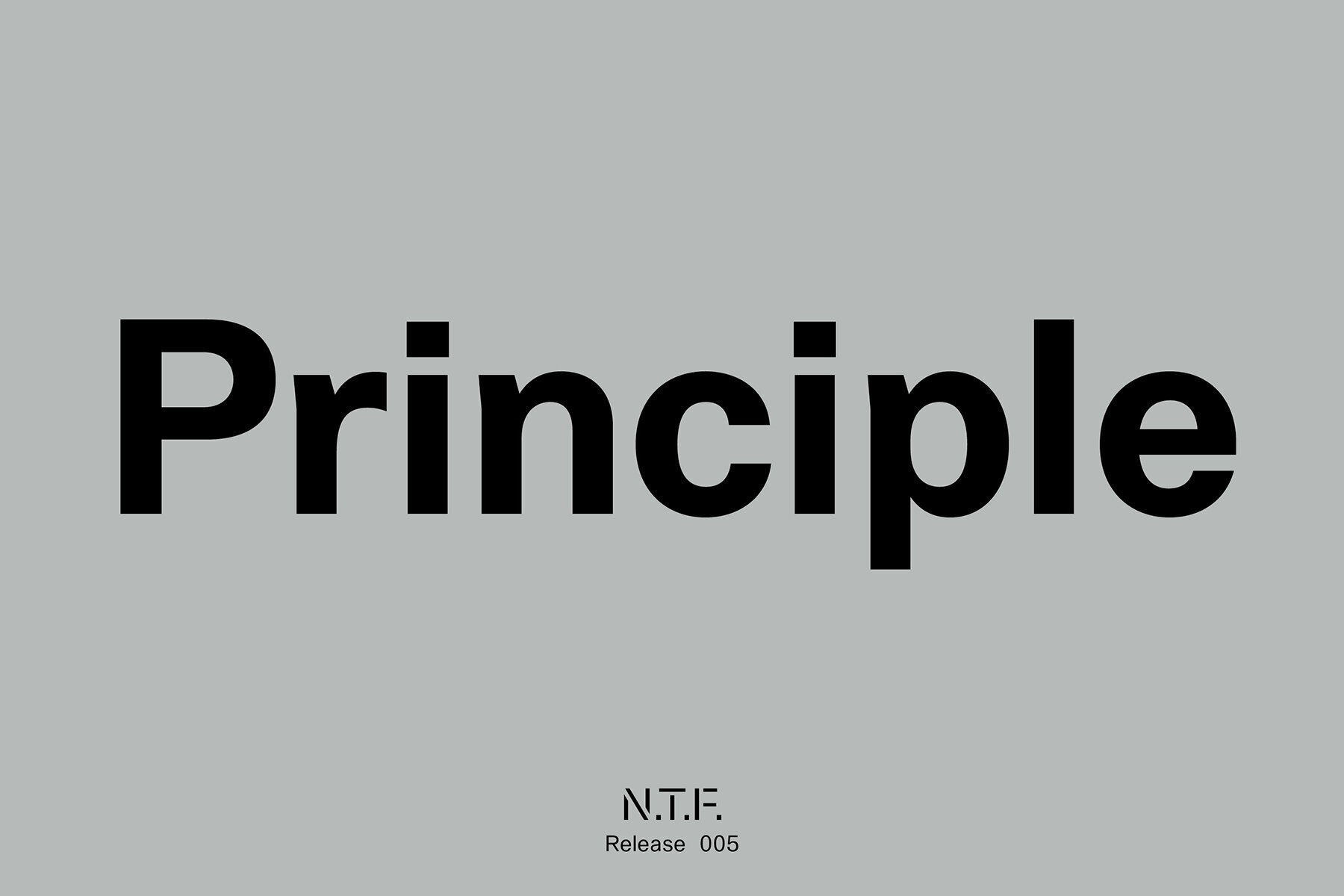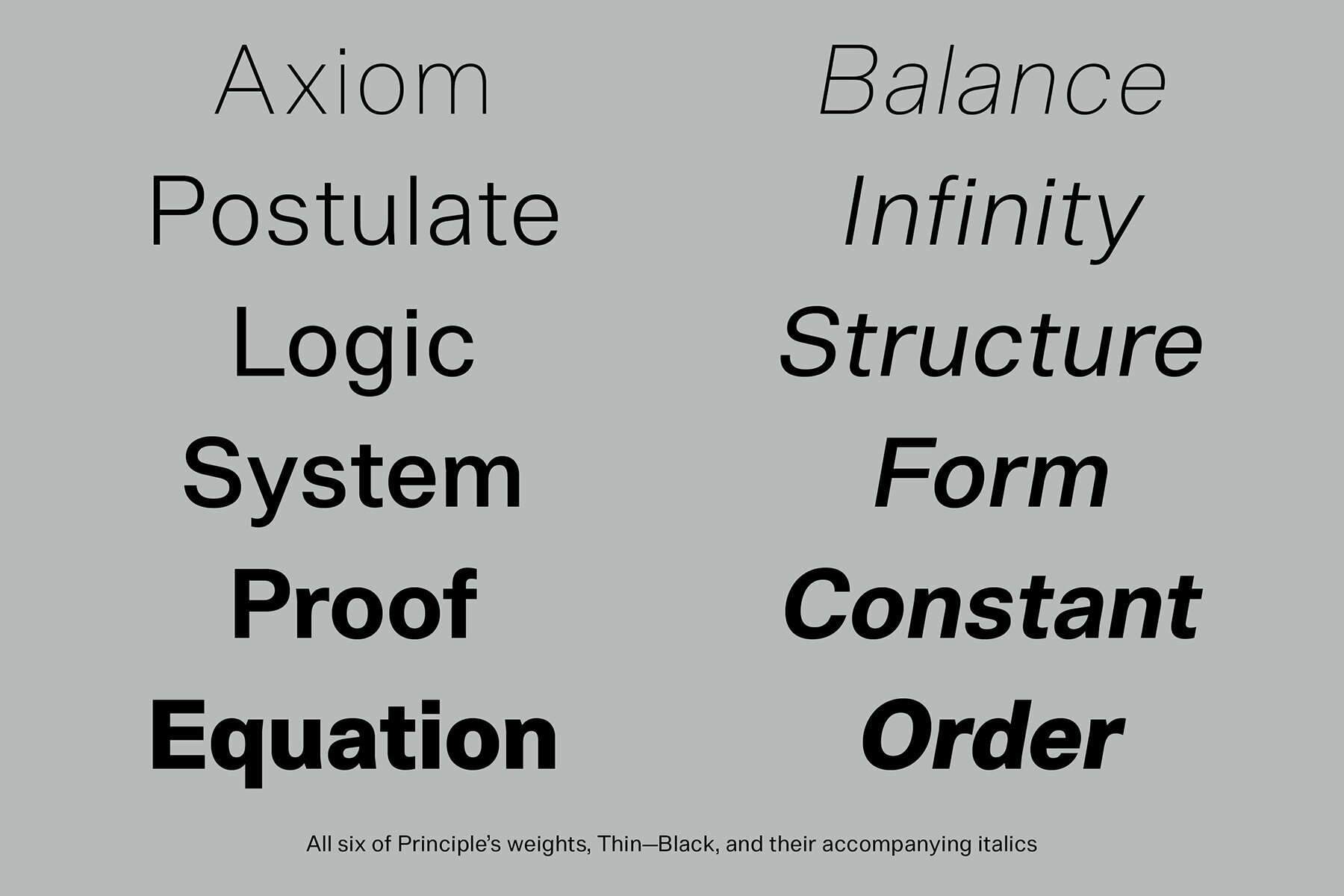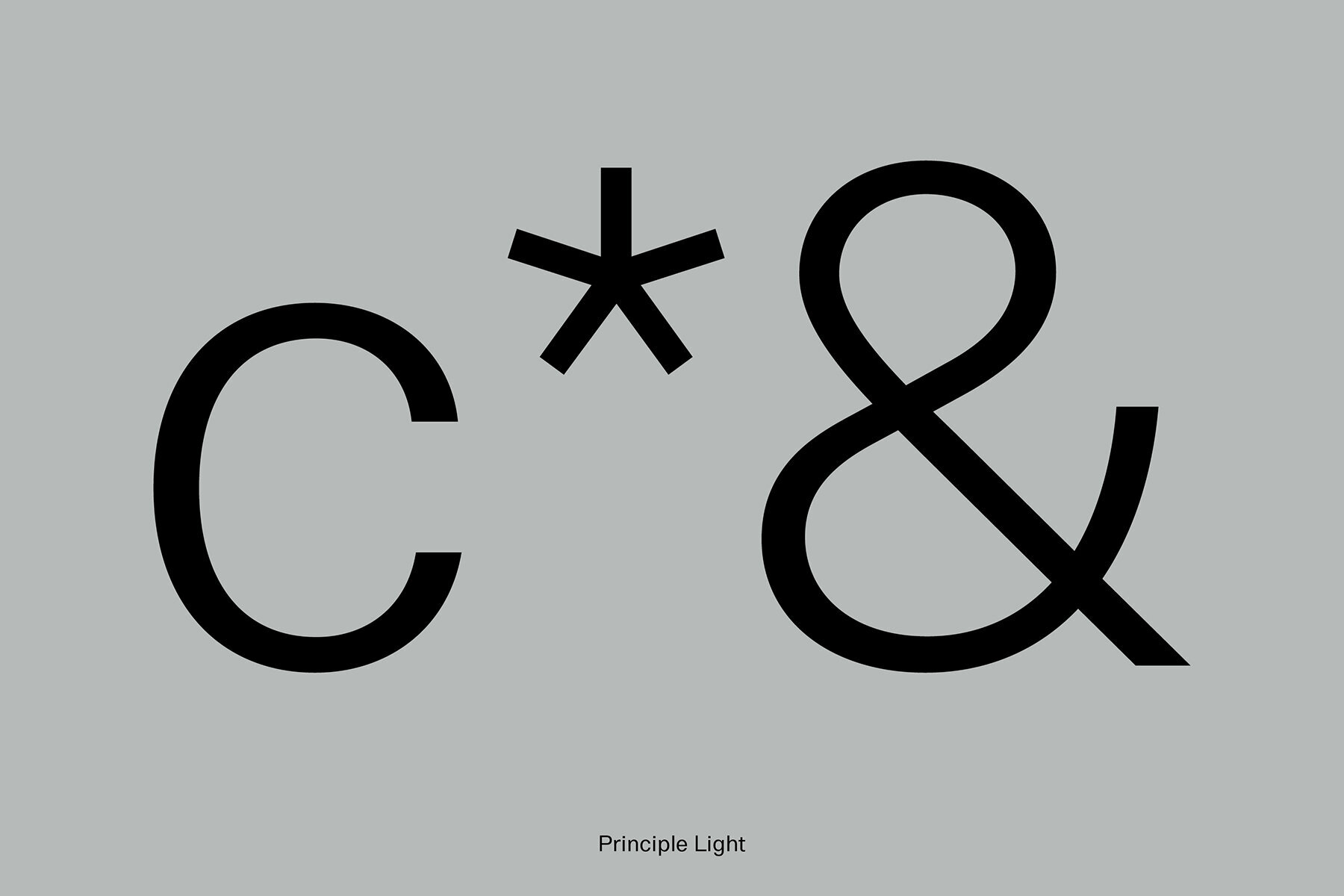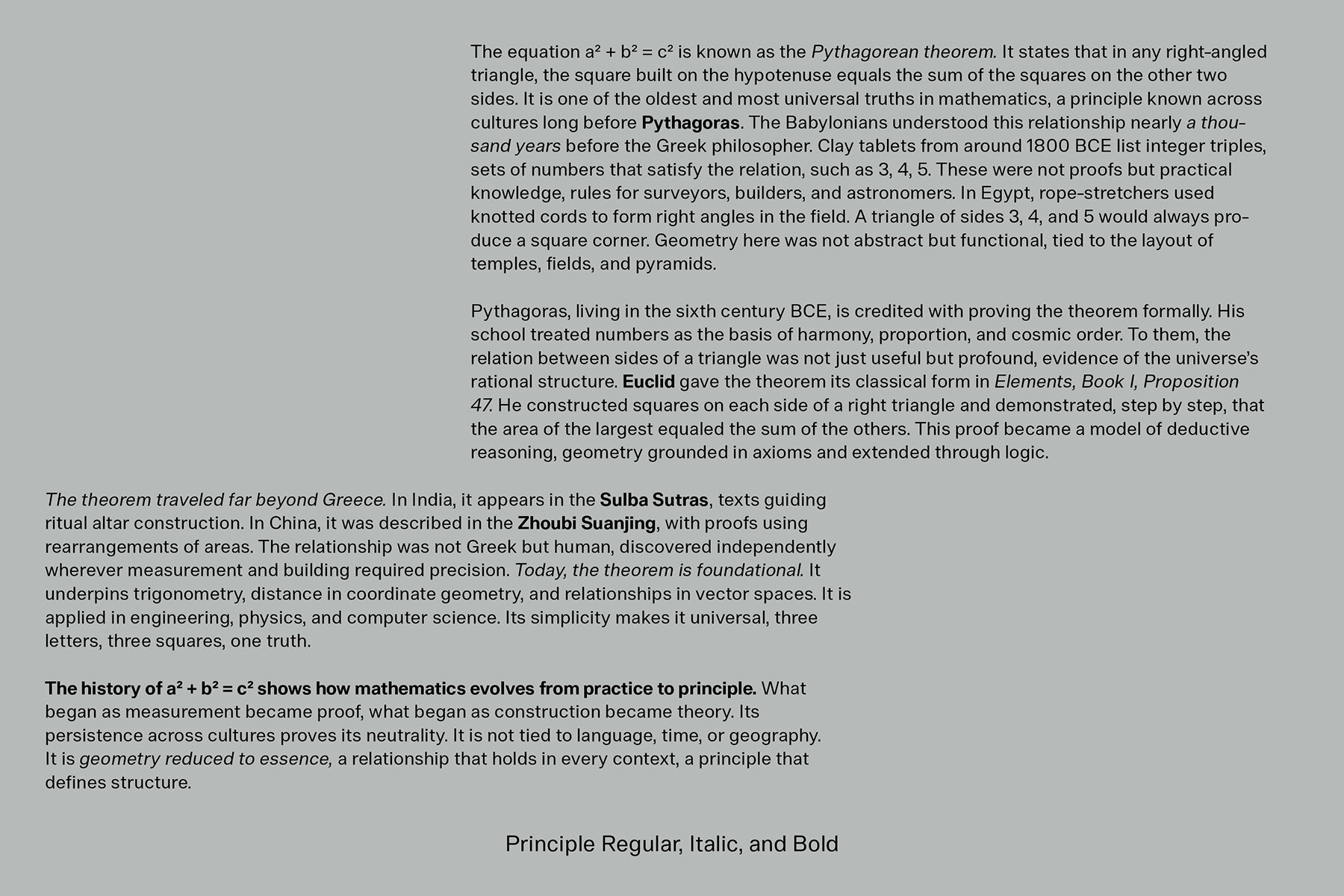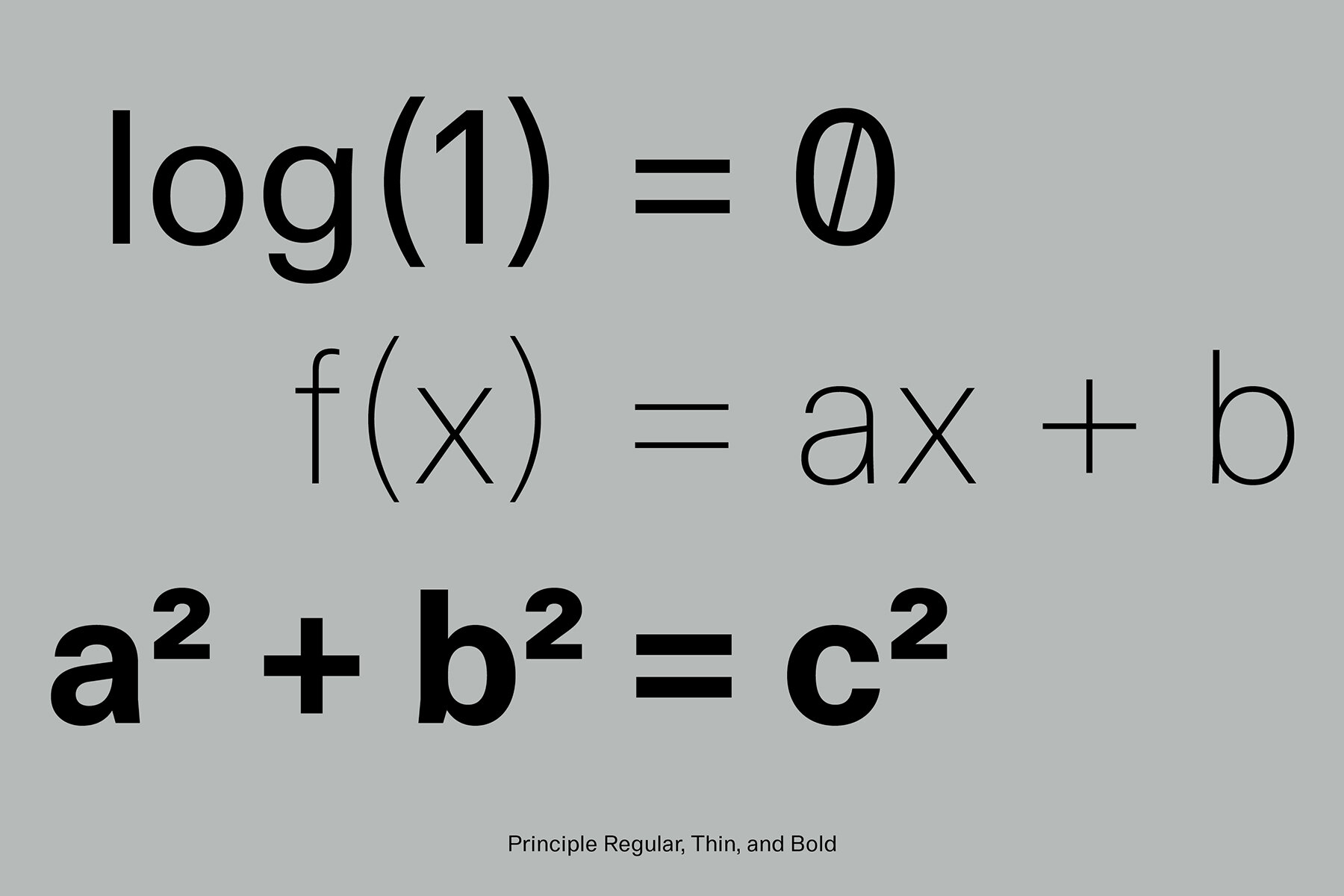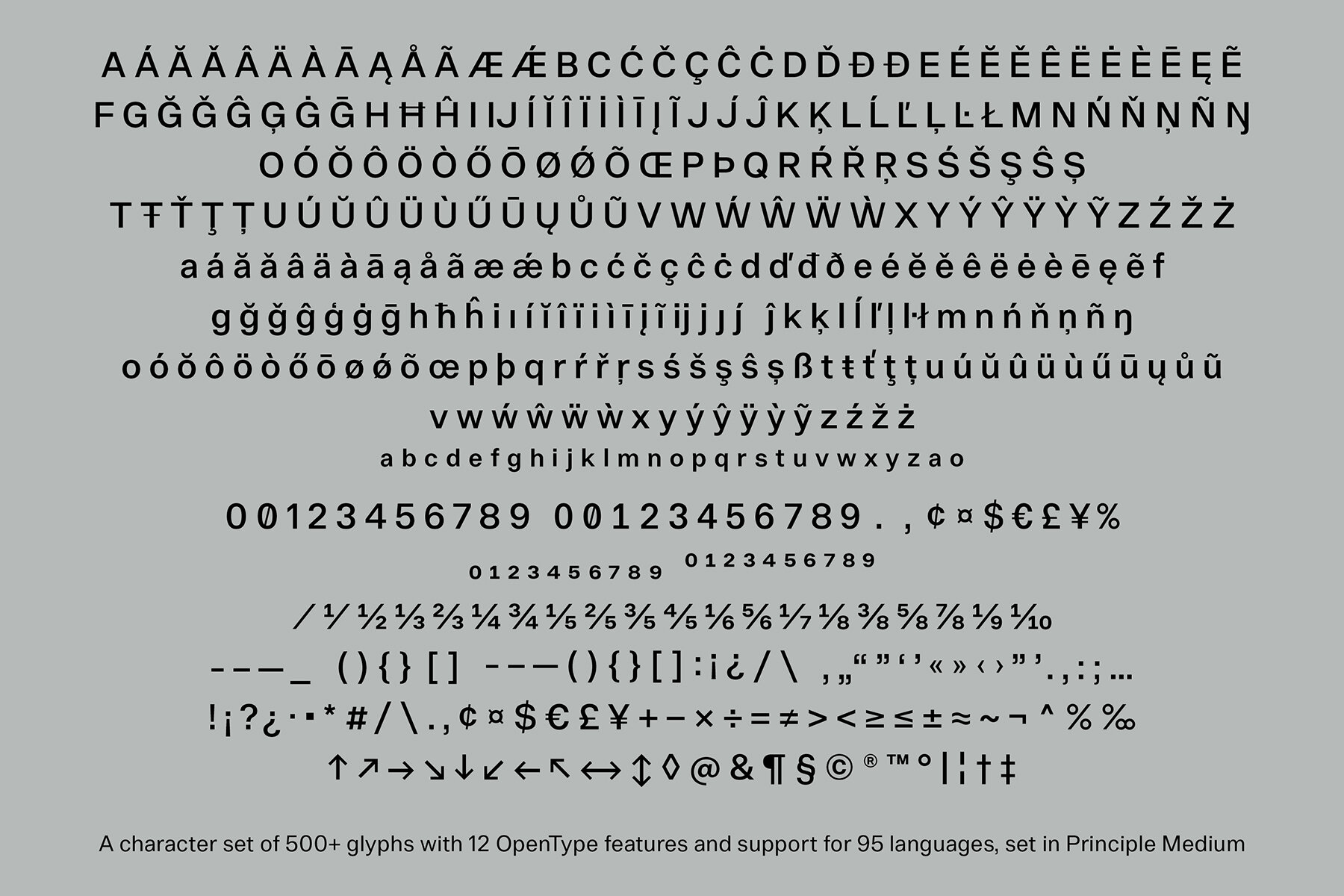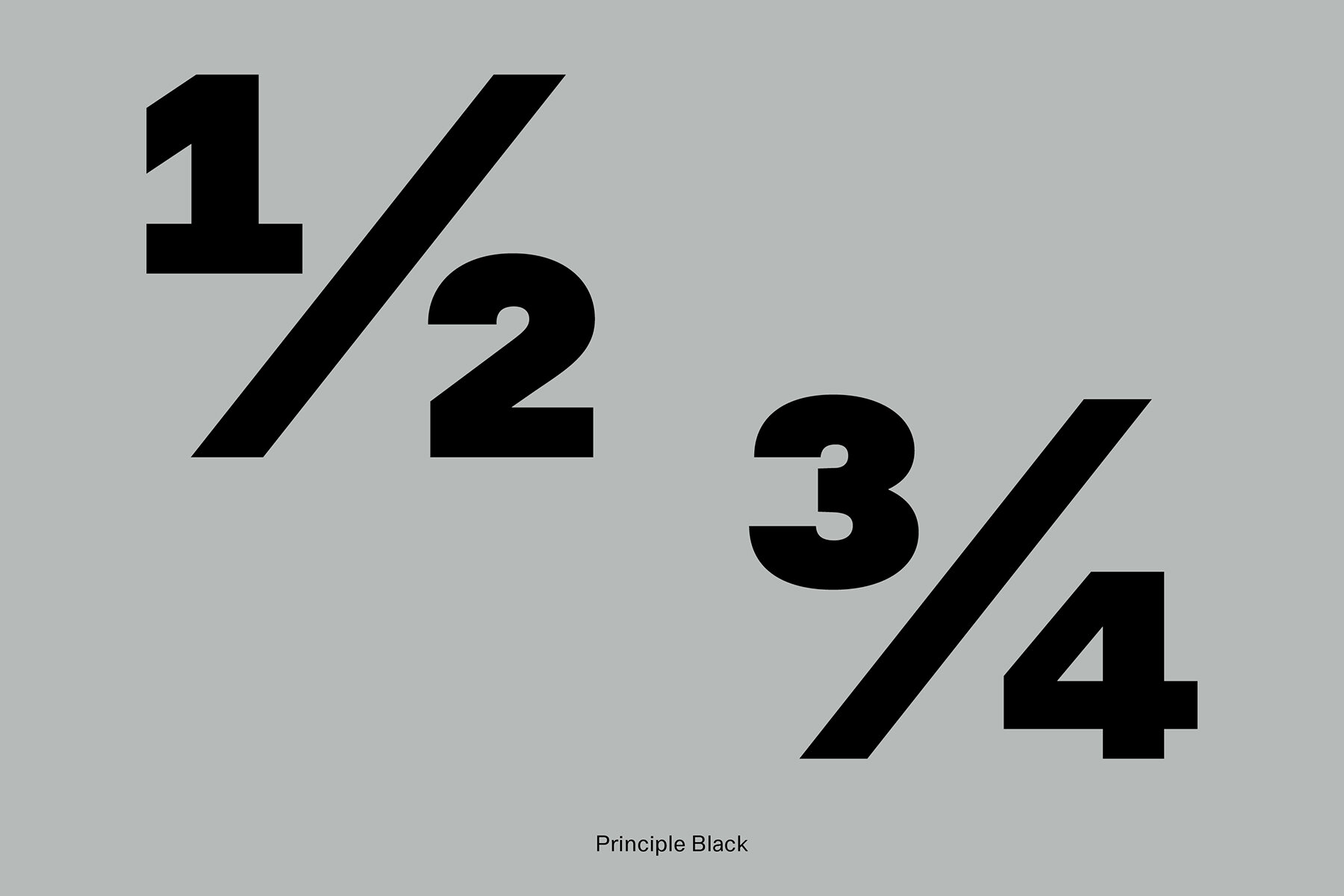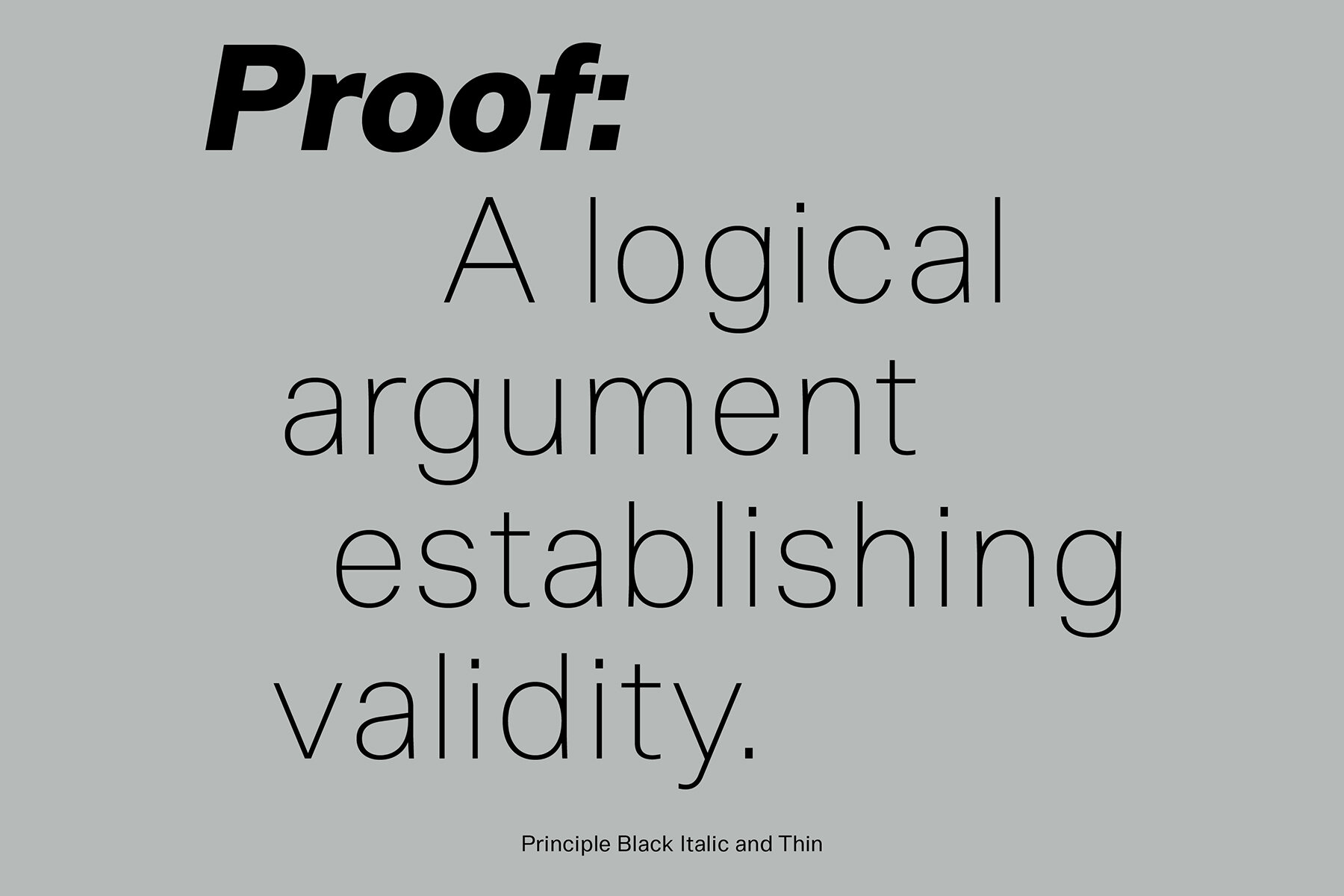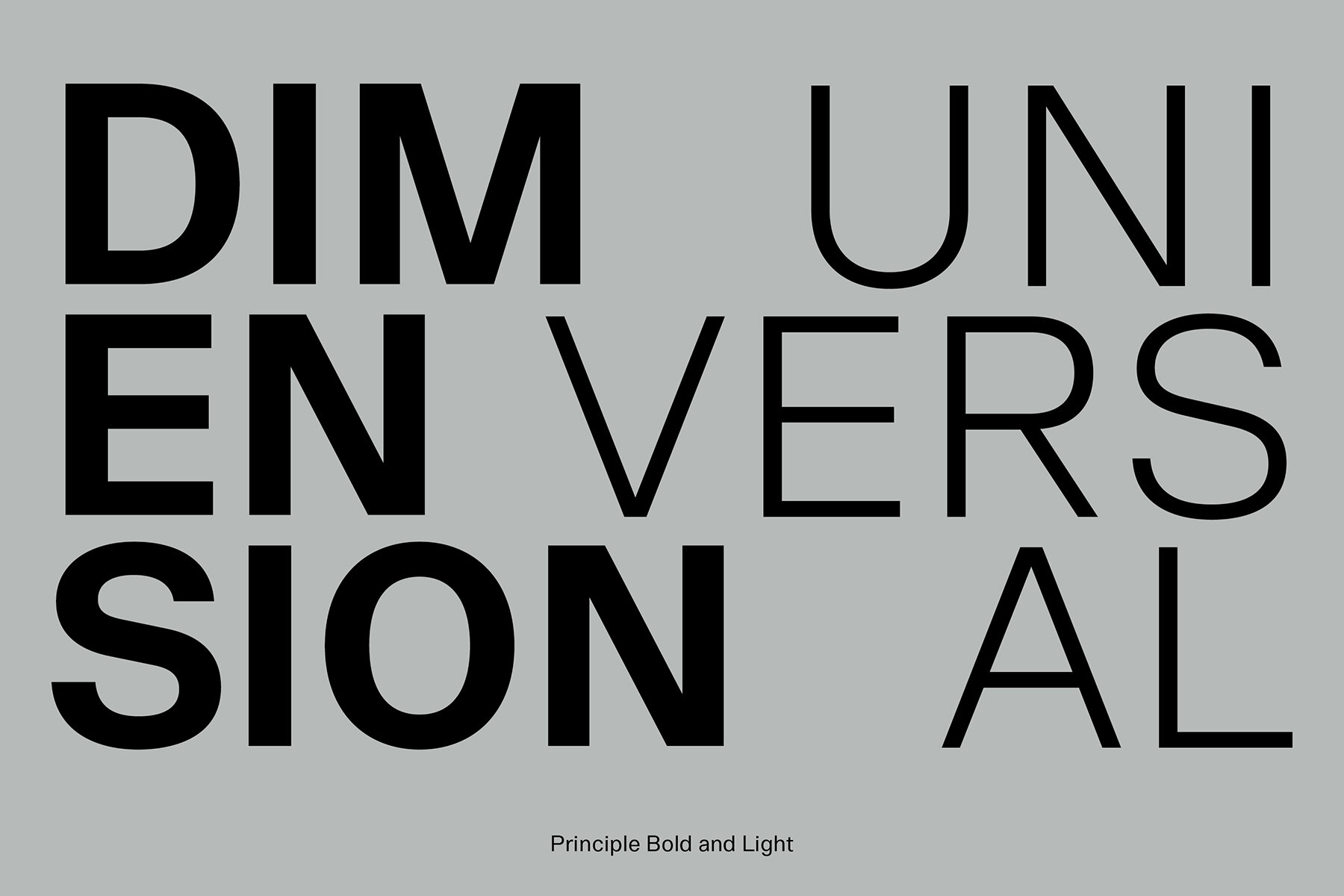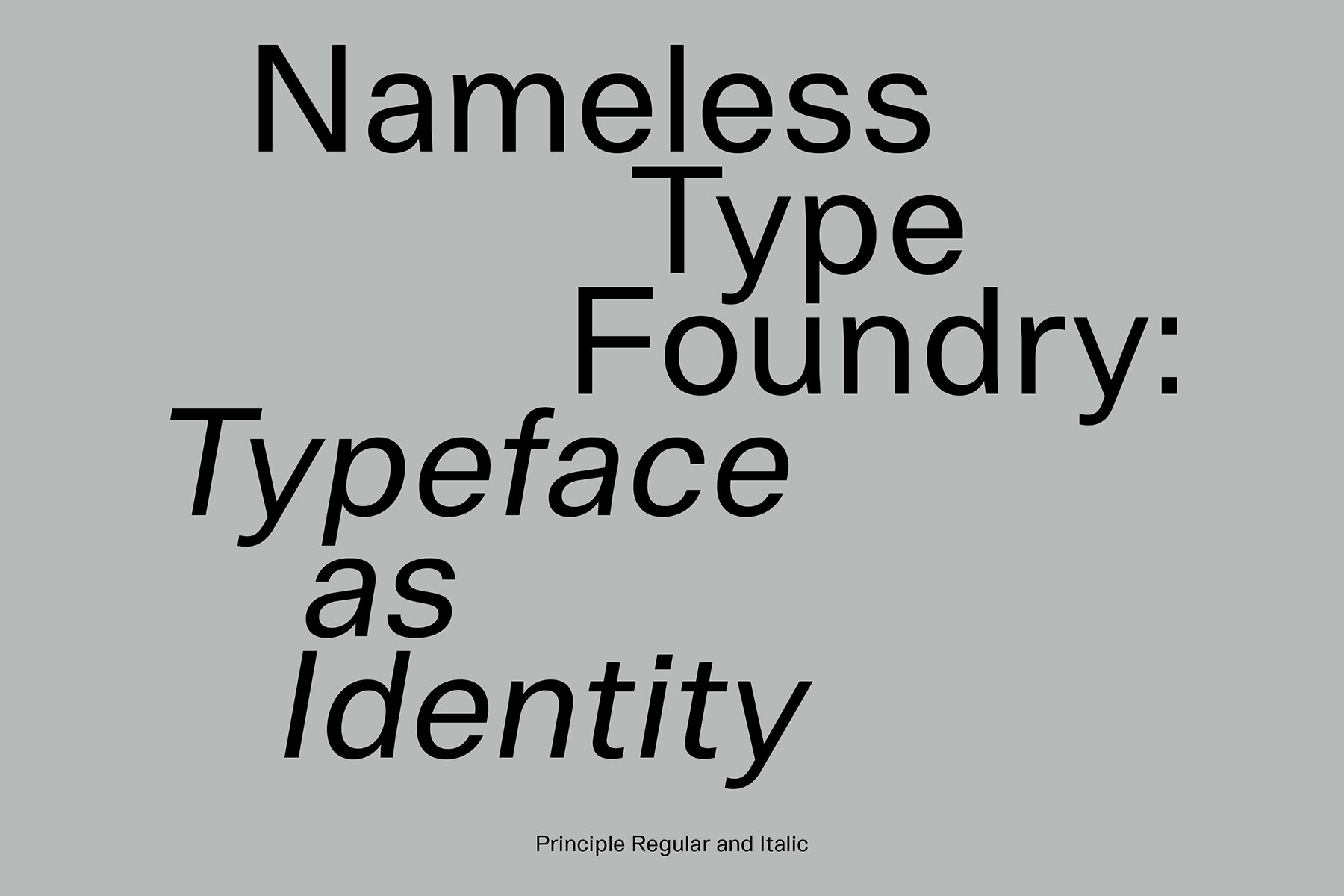
Principle Font
The Principle font family offers neutral forms, functional clarity, and universal use, making it a practical choice for varied design scenarios. This six-weight neogrotesk collection, complete with italics, is crafted to serve as a reliable sans-serif option for daily applications. It features an extensive character set of over 500 glyphs covering 95 languages, ensuring versatility across global contexts. Additionally, 12 OpenType features are included, enabling typographic customization with numeral styles and case-sensitive forms. Designed with a purposefully neutral touch, Principle stands out as an ordinary typeface that excels in clarity and functionality.Principle: A Neogrotesk Sans for Everyday Use